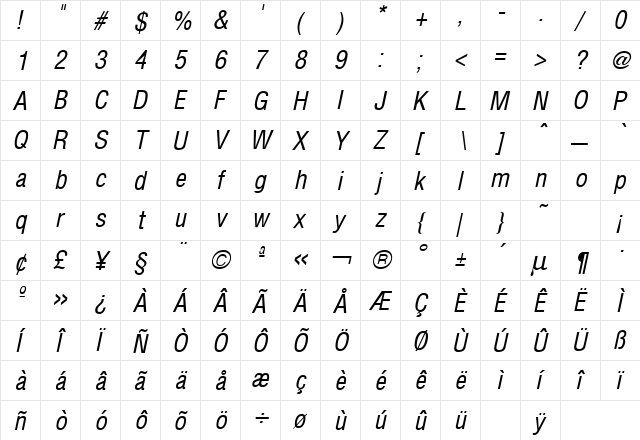
Hallmarke Condensed Italic Font Preview
Design Context for Hallmarke Condensed Typeface
Hallmarke Condensed takes a measured approach to typography — its balanced proportions and neutral character make it a reliable workhorse for both digital and print work. The slanted form adds forward momentum and visual energy. The condensed width makes it efficient for tight spaces without sacrificing legibility.
Pro Tip: Use Hallmarke Condensed for emphasis, pull quotes, and subheadings where its slanted energy can add rhythm to the layout.